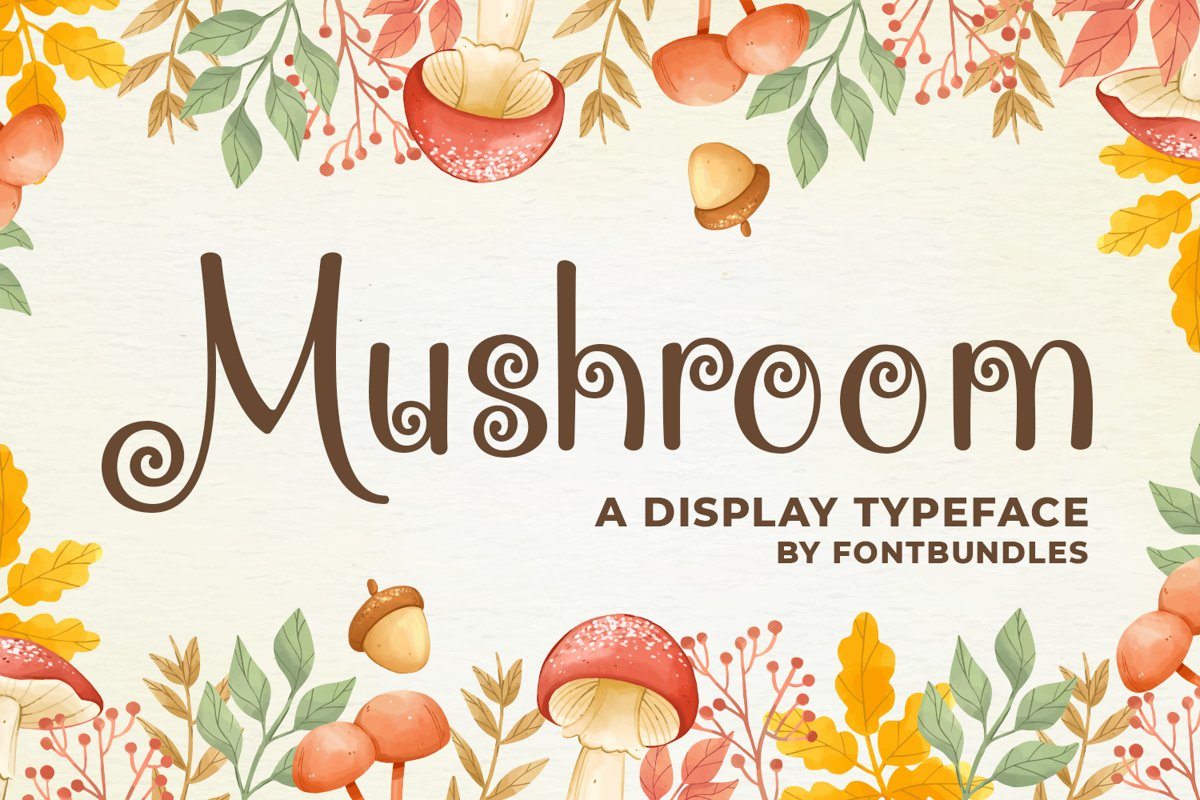
Mushroom
Mushroom is a display typeface. Perfect for display, quotes, name card, business card, headline, tittle, merchandise, packaging, craft needs, logo, logotype and many more.